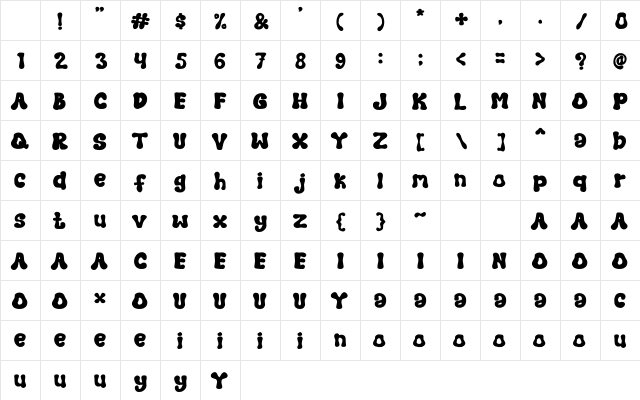
Retro Flower wears its vintage influences proudly, with letterforms that recall mid-century signage, classic packaging, and nostalgia-driven design.
Font Pairing: Combine Retro Flower with a simple slab or neutral sans - period-accurate companions reinforce the vintage feel without competing for attention.
Pro Tip: Lean into Retro Flower's period character by pairing it with aged paper textures, muted colour palettes, and vintage illustration styles.